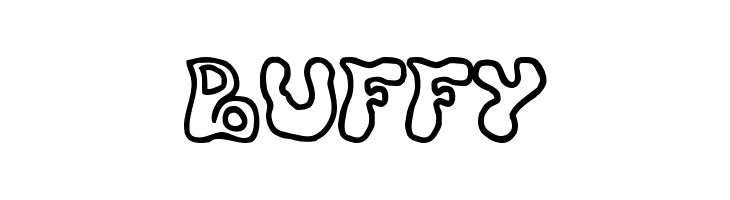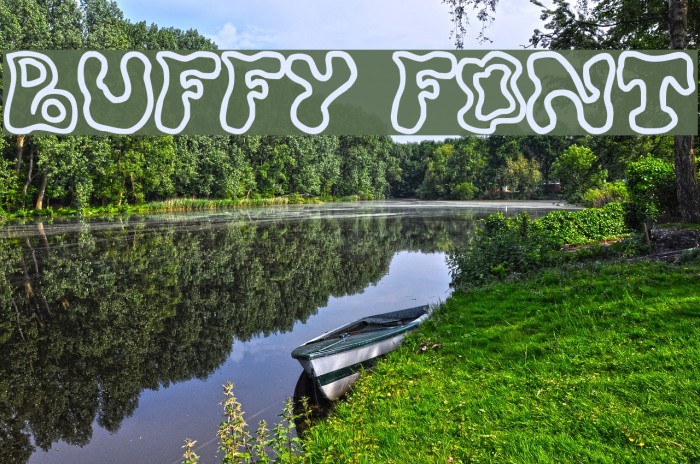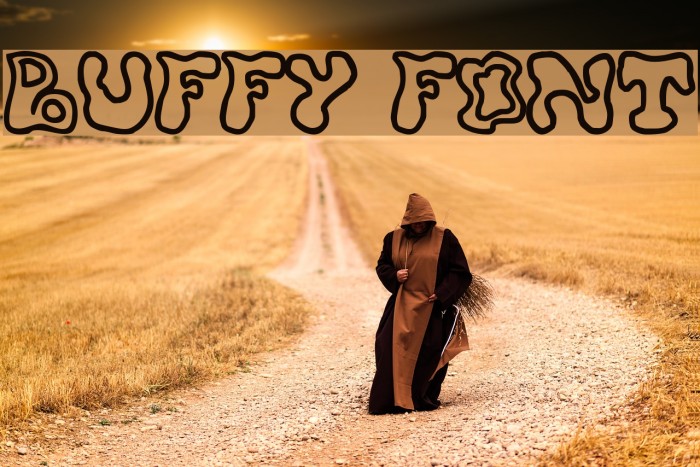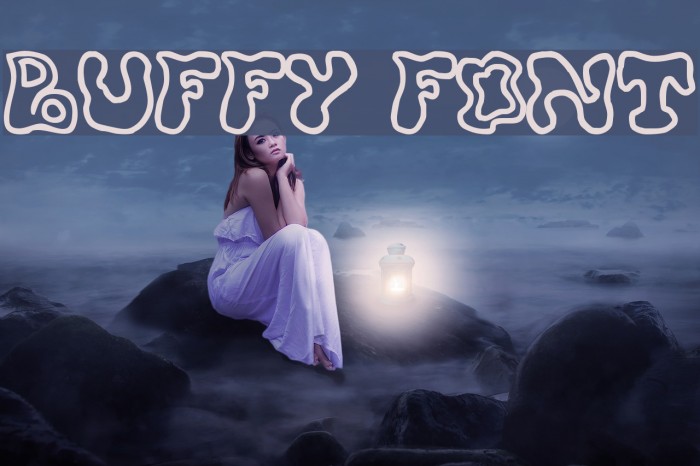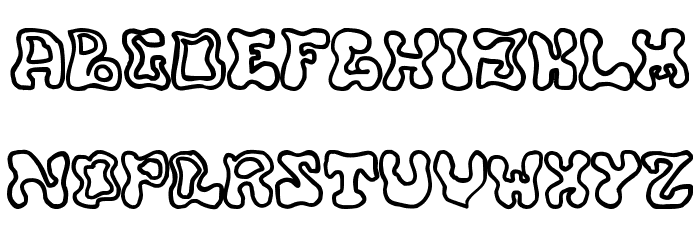
buffy Font
buffy Description
This font features a playful and wavy outline style, giving it a unique and dynamic appearance. The characters are bold and have a hand-drawn feel, with irregular curves and a sense of movement. The uppercase and lowercase letters maintain a consistent style, with the uppercase being slightly larger and more pronounced. The numbers and special characters follow the same design principles, ensuring a cohesive look across all elements. This font is ideal for projects that require a fun and informal touch, such as children's books, posters, or creative branding.
A playful, wavy outline font with a hand-drawn feel from Outline fonts.
- Proposed Projects: Children's books, posters, creative branding, event invitations.
- Overall Style: Playful, Hand-drawn